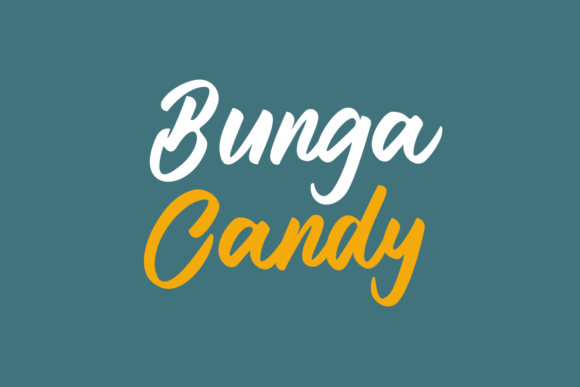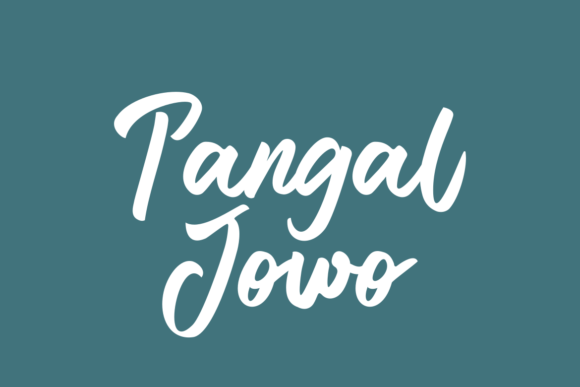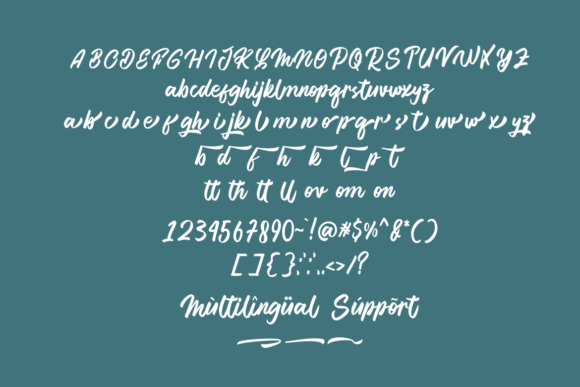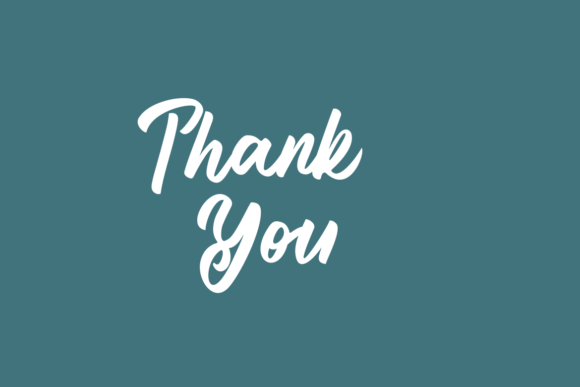
Introduction to Regal Love Font
Regal Love is a gorgeous and bold handwritten font, crafted to give your headlines and logotype projects a stylish touch.
This font reads as strong, confident, and dynamic and can add tons of nostalgic character to your designs Regal Love is PUA encoded which means you can access all of the glyphs and swashes with ease.
Key Features of Regal Love Font
Why Choose Regal Love Font?
Regal Love Font offers exceptional quality and versatility, making it a valuable addition to your design toolkit. Whether you’re creating for personal projects or commercial use, Regal Love Font delivers professional results.